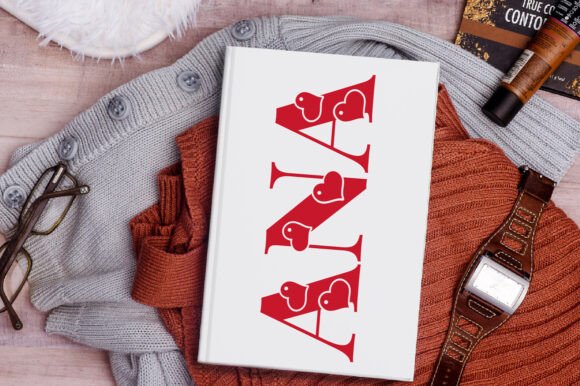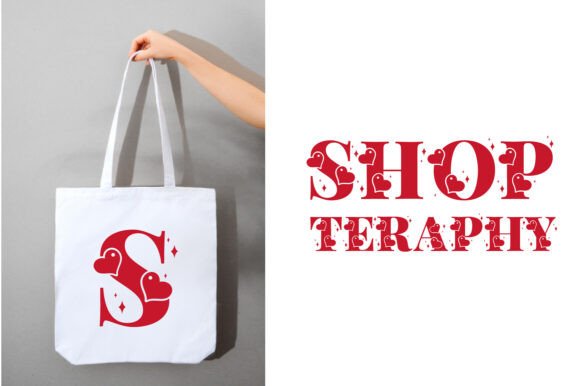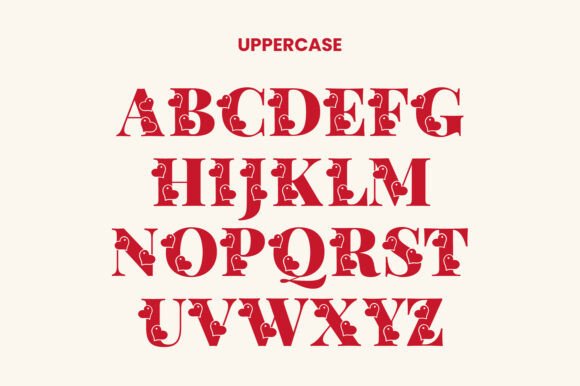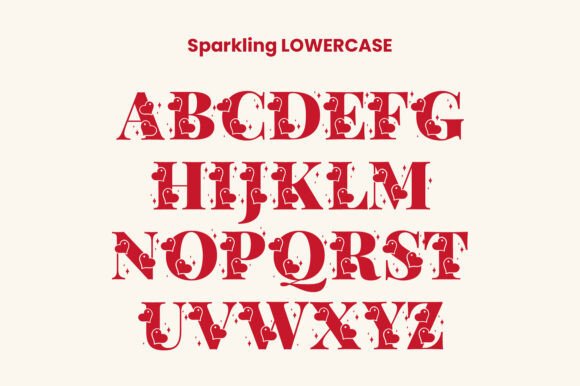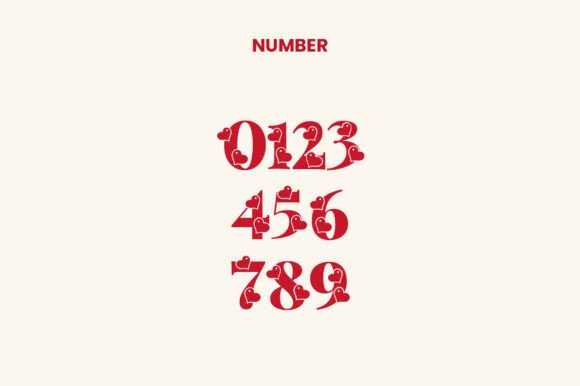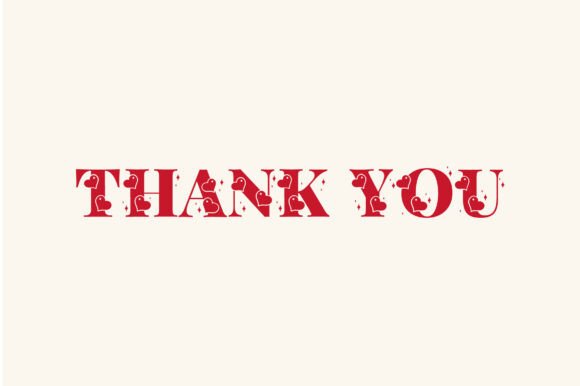
Introduction to Love Inside Font Font
Fonts play a crucial role in design, and the Love Inside Font font is a typeface that brings both character and versatility to any project. Whether you’re working on a branding project, a website, or a print design, the Love Inside Font font offers a unique style that can elevate your work.
Love Inside is a lovely decorative font filled with playful heart shapes.
This charming love font is perfect for Valentineβs Day designs, wedding invitations, romantic quotes, greeting cards, stickers, crafts, and any project that needs a touch of love and fun .
Key Features of Love Inside Font Font
Why Choose Love Inside Font Font?
The Love Inside Font font is more than just a typeface β it’s a design tool that helps you communicate your message with style and clarity. Its unique character set and versatile design make it suitable for a wide range of applications, from elegant invitations to bold headlines.
With its carefully crafted letterforms and balanced proportions, the Love Inside Font font ensures readability and visual appeal across all mediums.
What makes Love Inside Font font special?
The Love Inside Font font stands out with its unique design, exceptional readability, and versatility across various design applications.